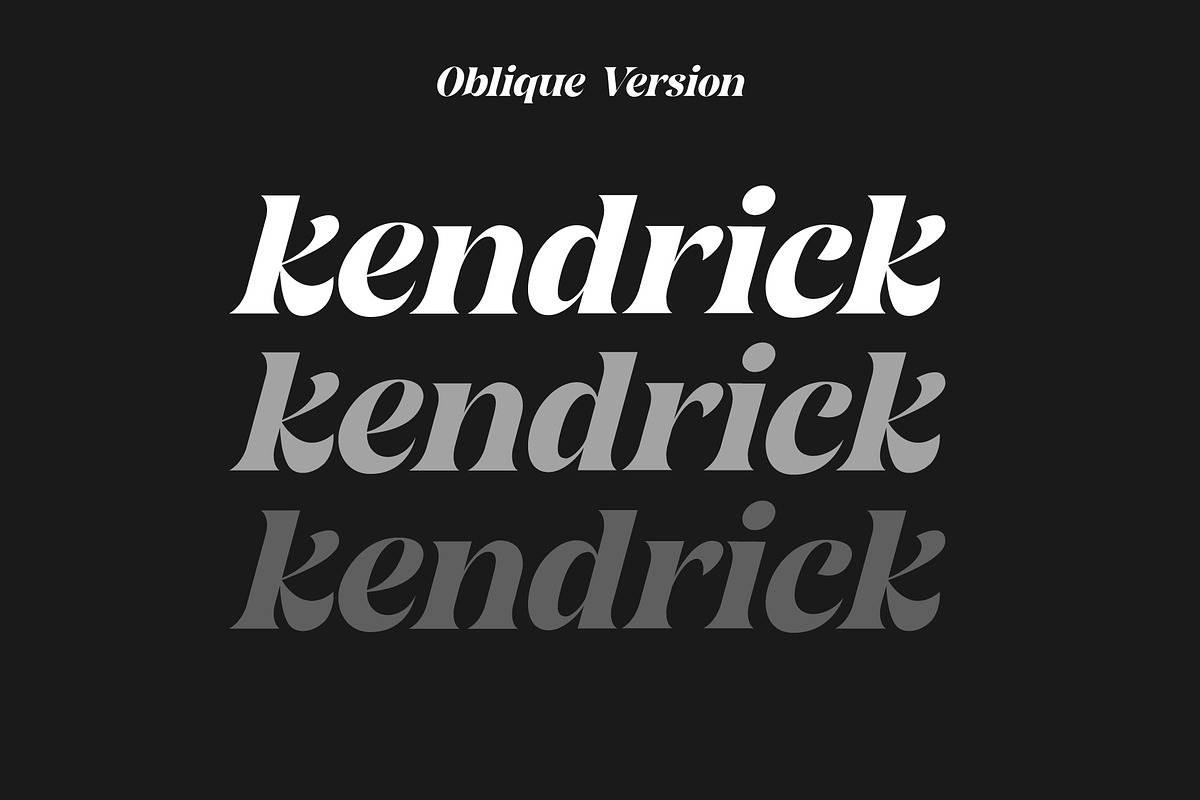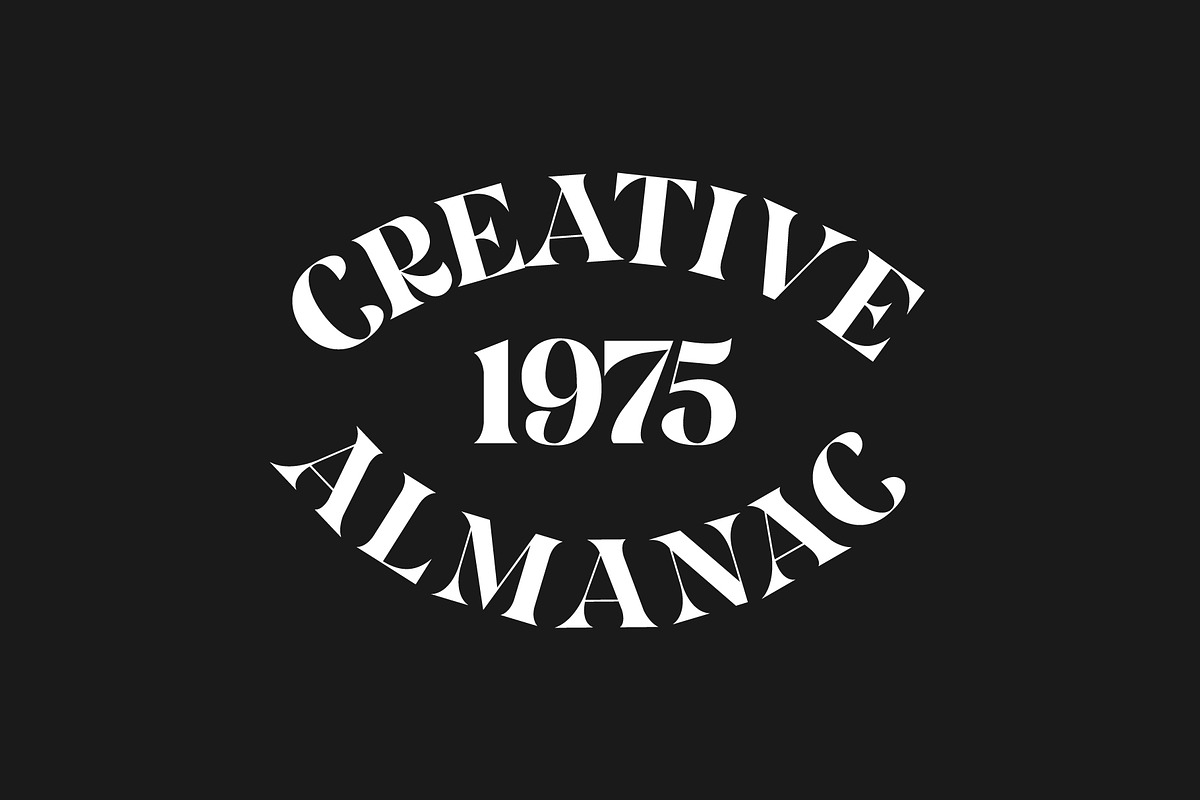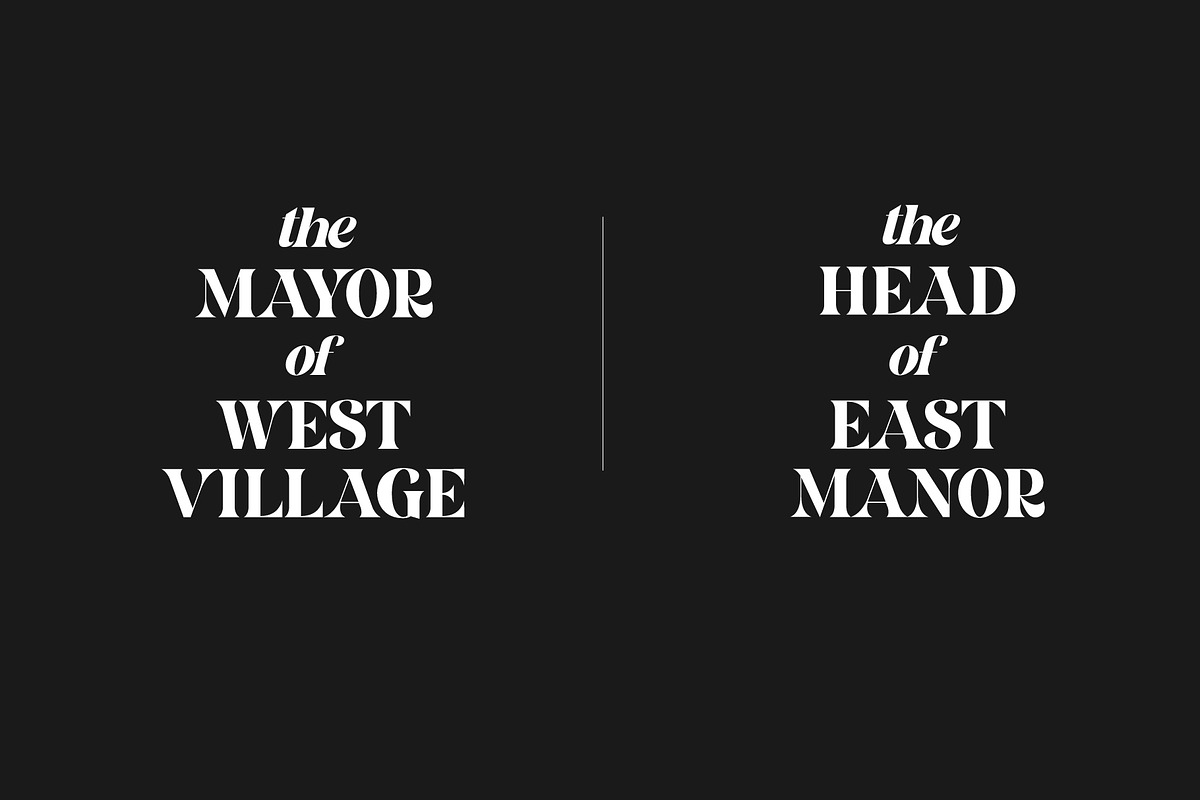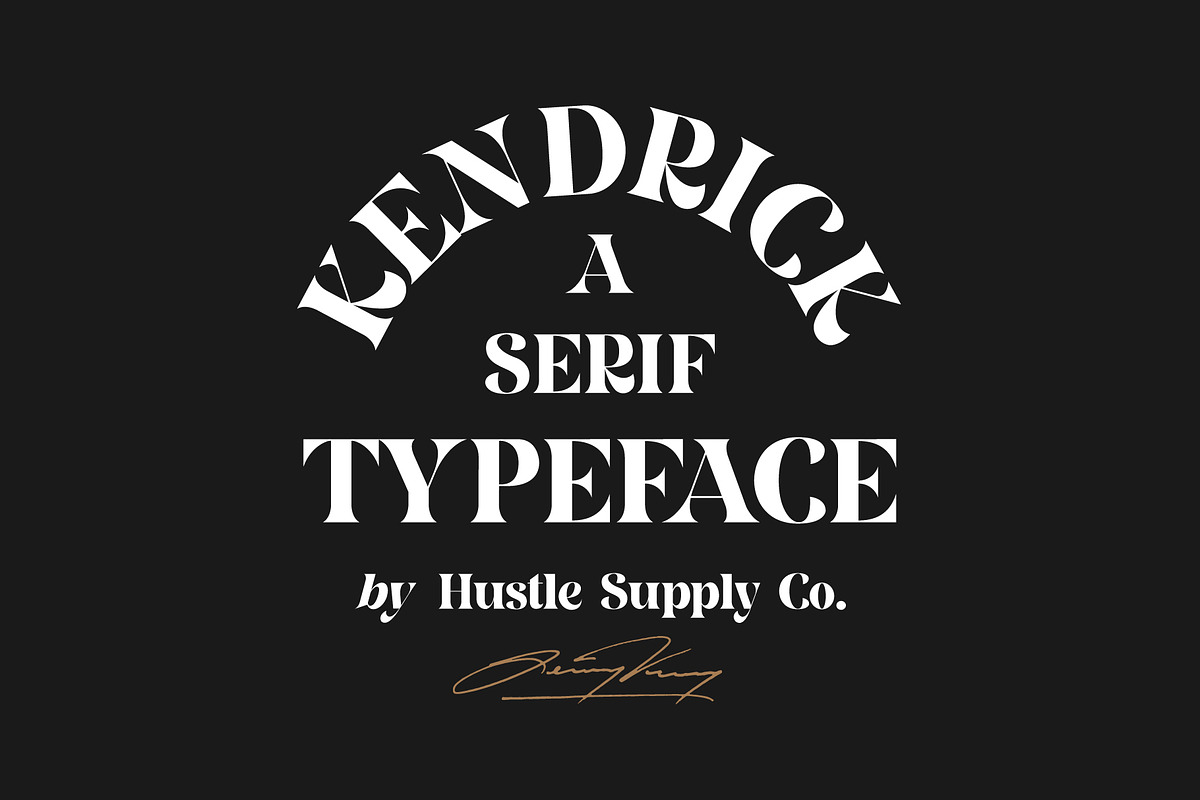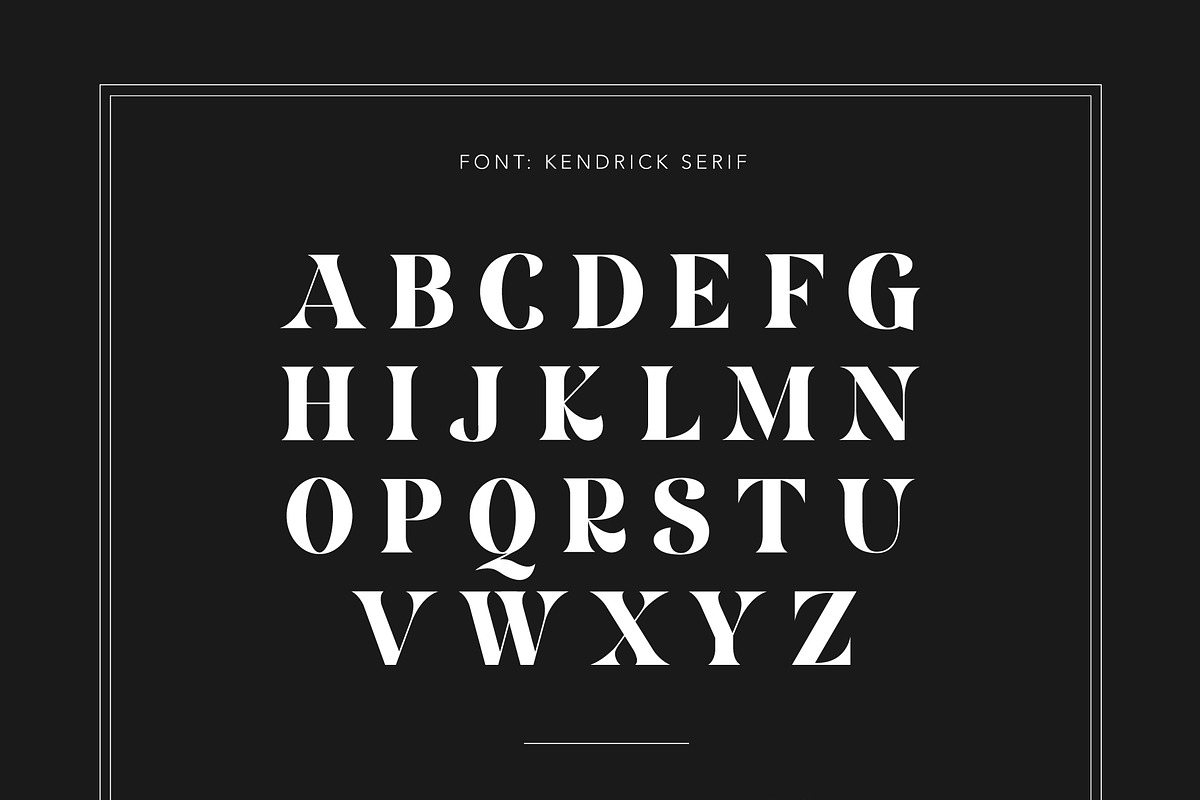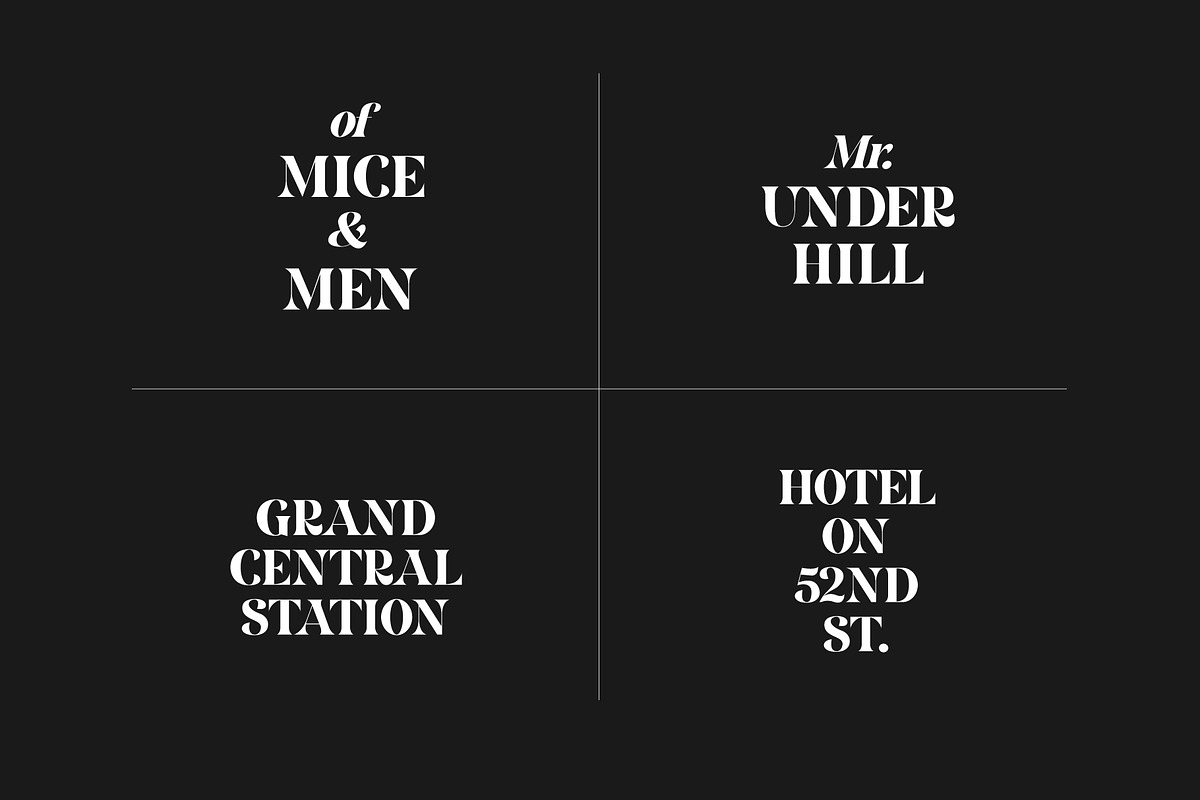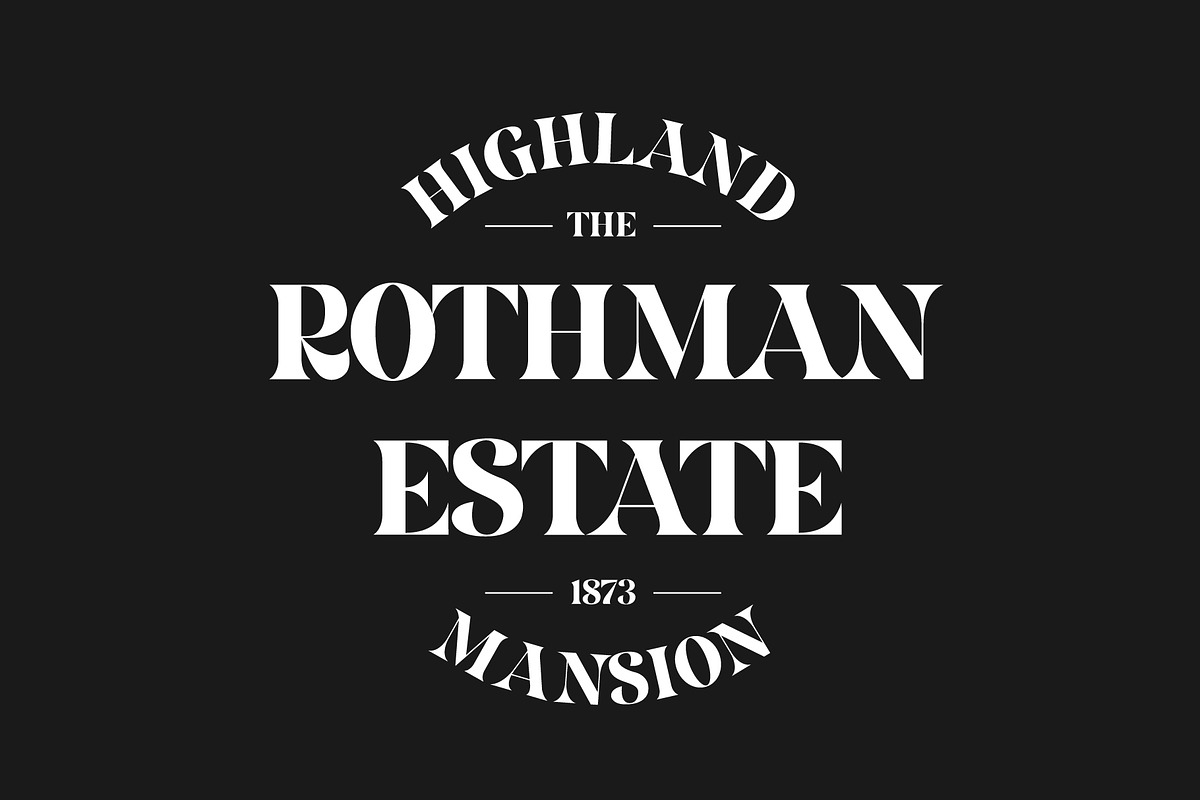
Kendrick Serif
Kendrick Serif is a bold serif headline typeface designed by Jeremy Vessey of Hustle Supply Co. Kendrick comes with 362 glyphs, regular & oblique versions with both upper & lowercase character set.